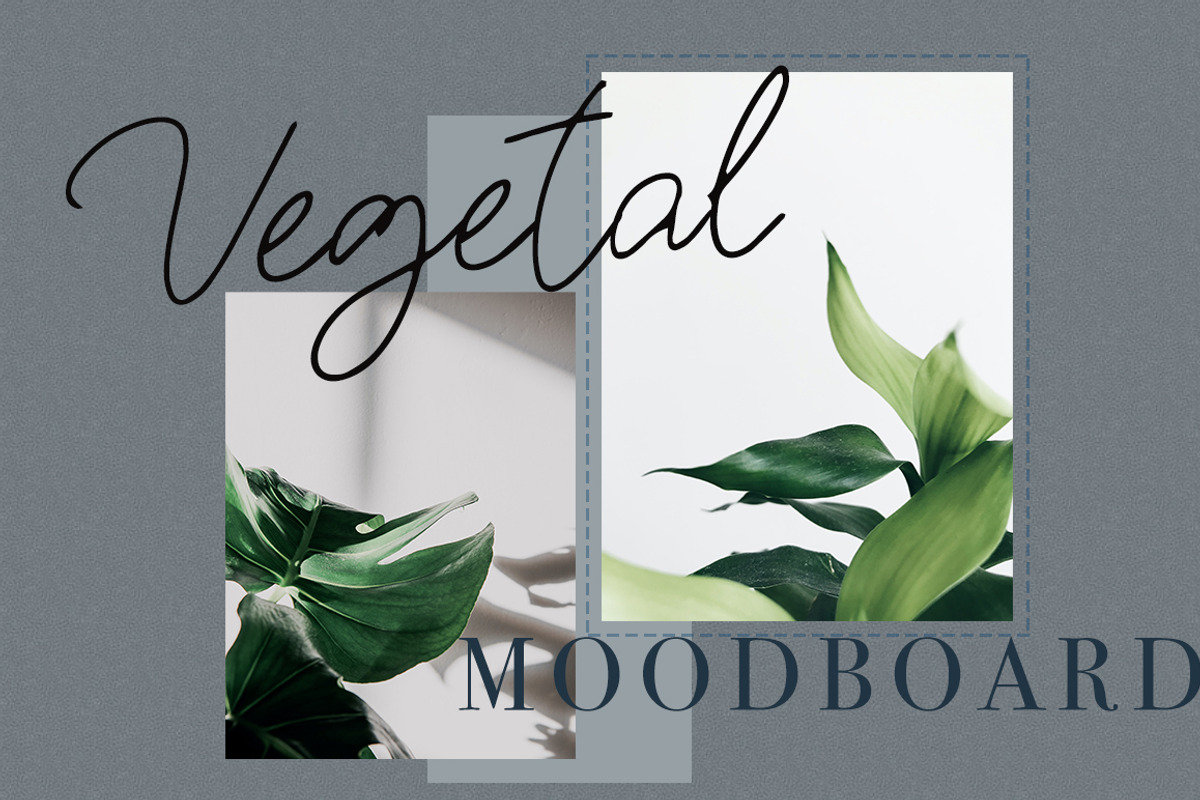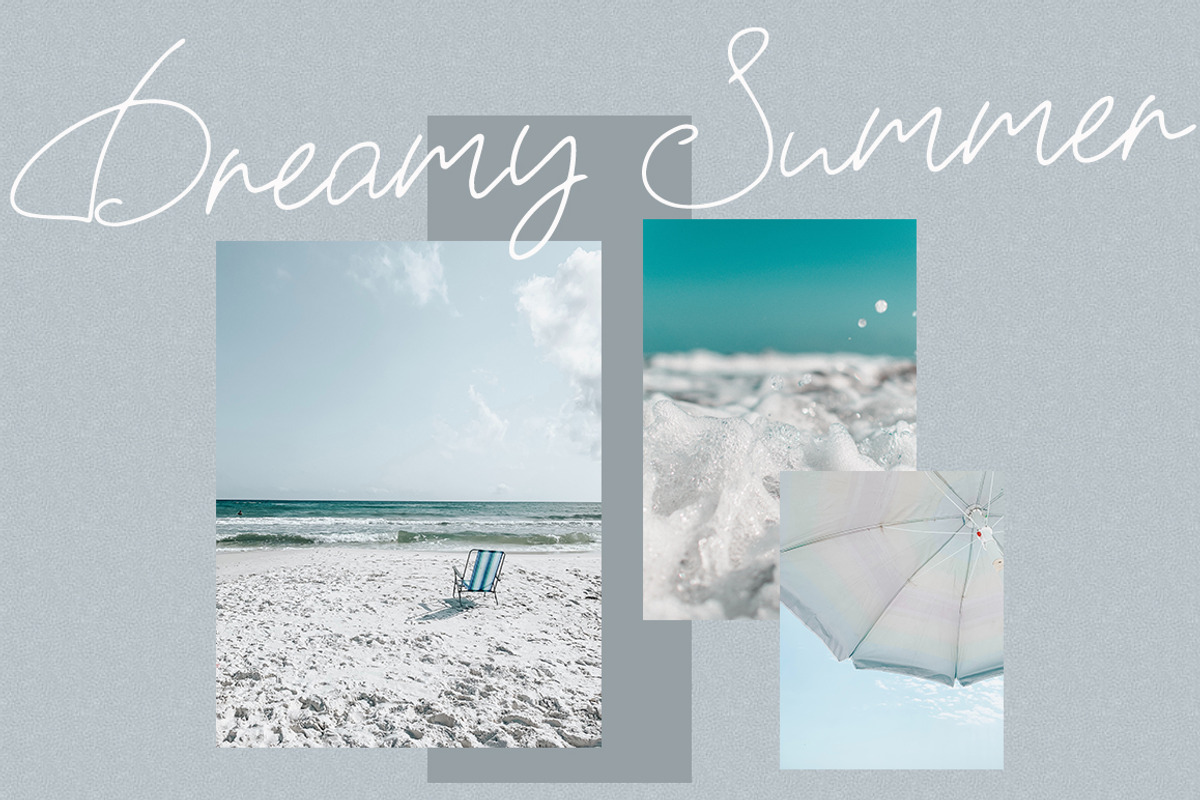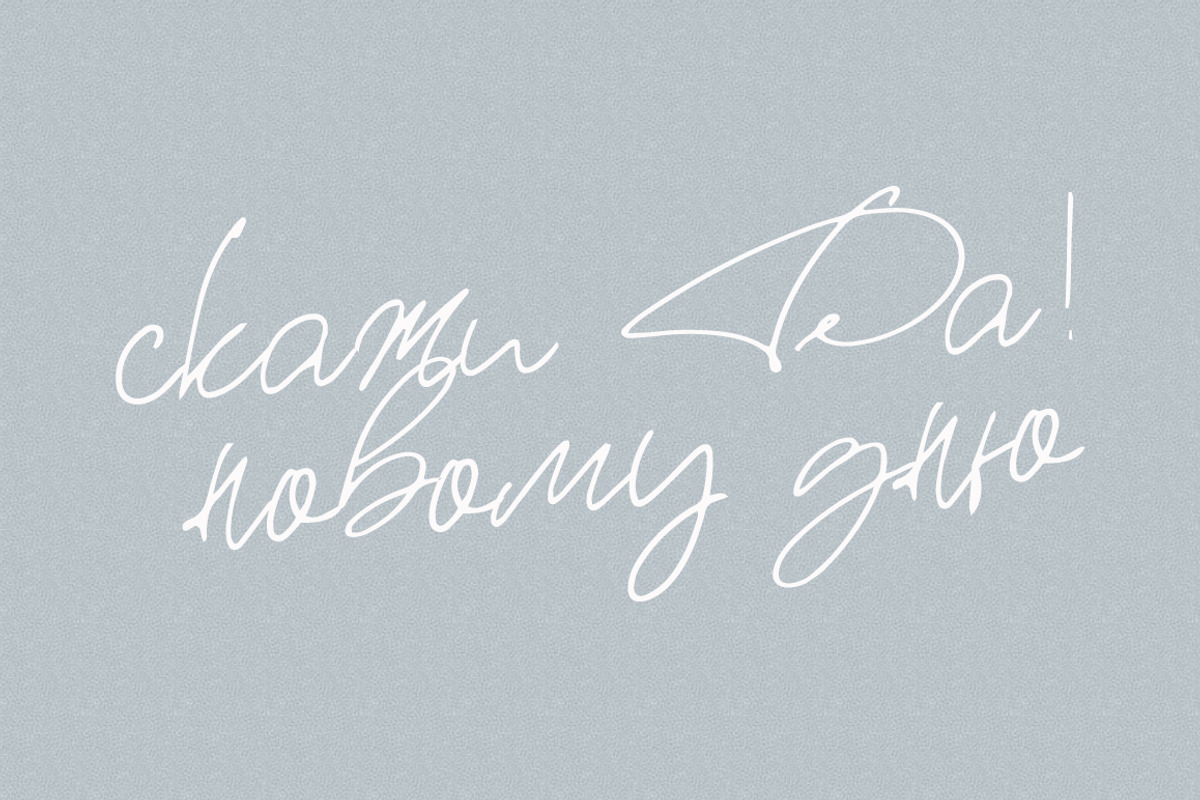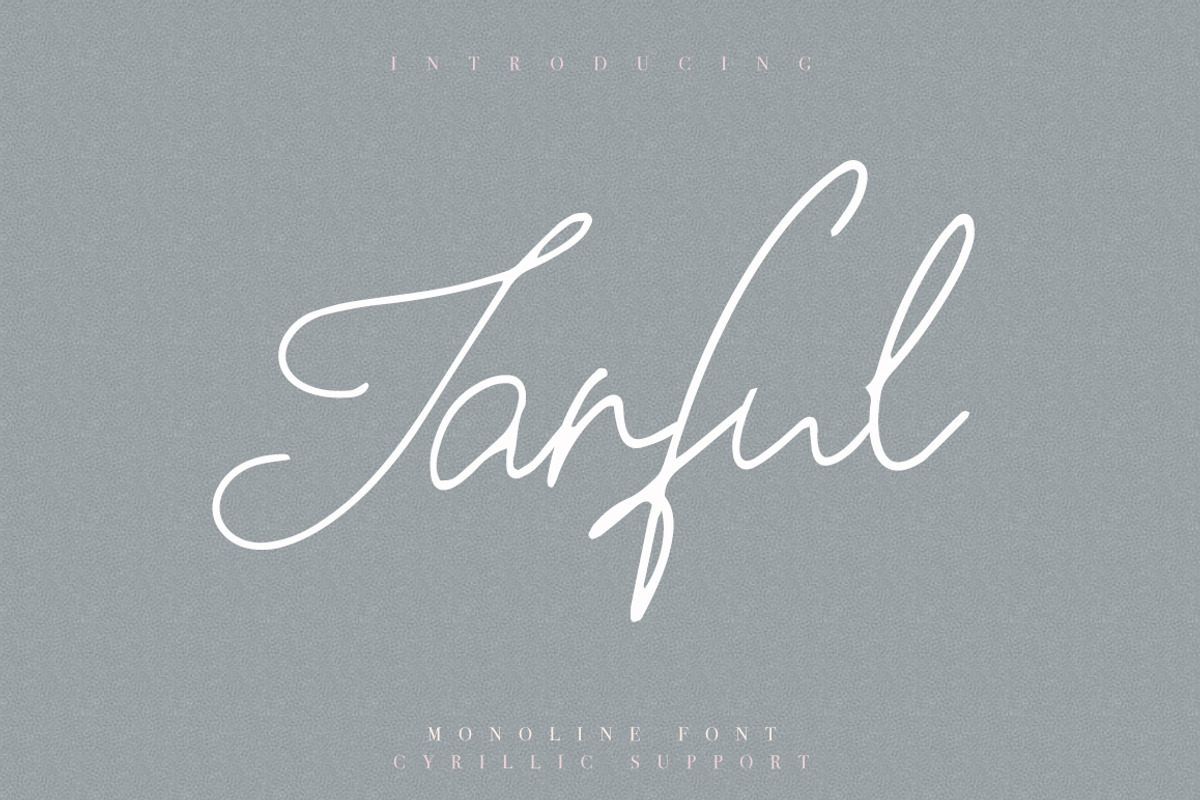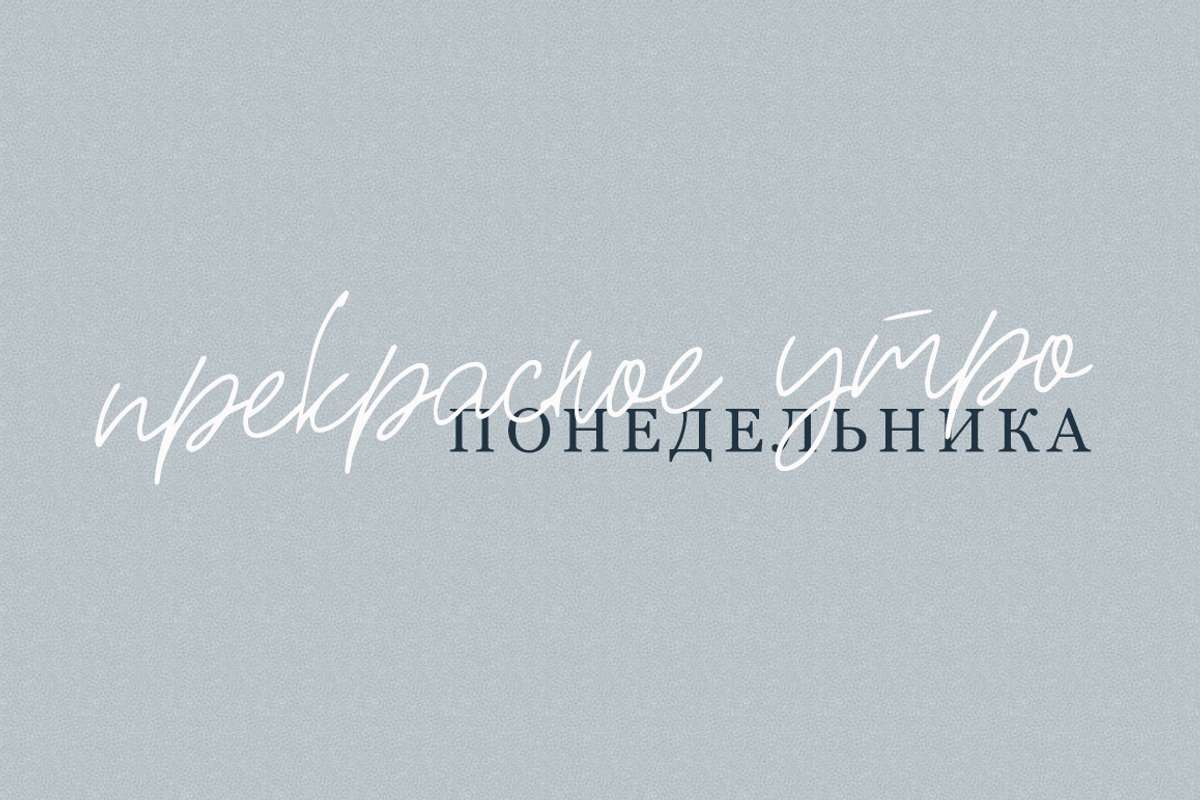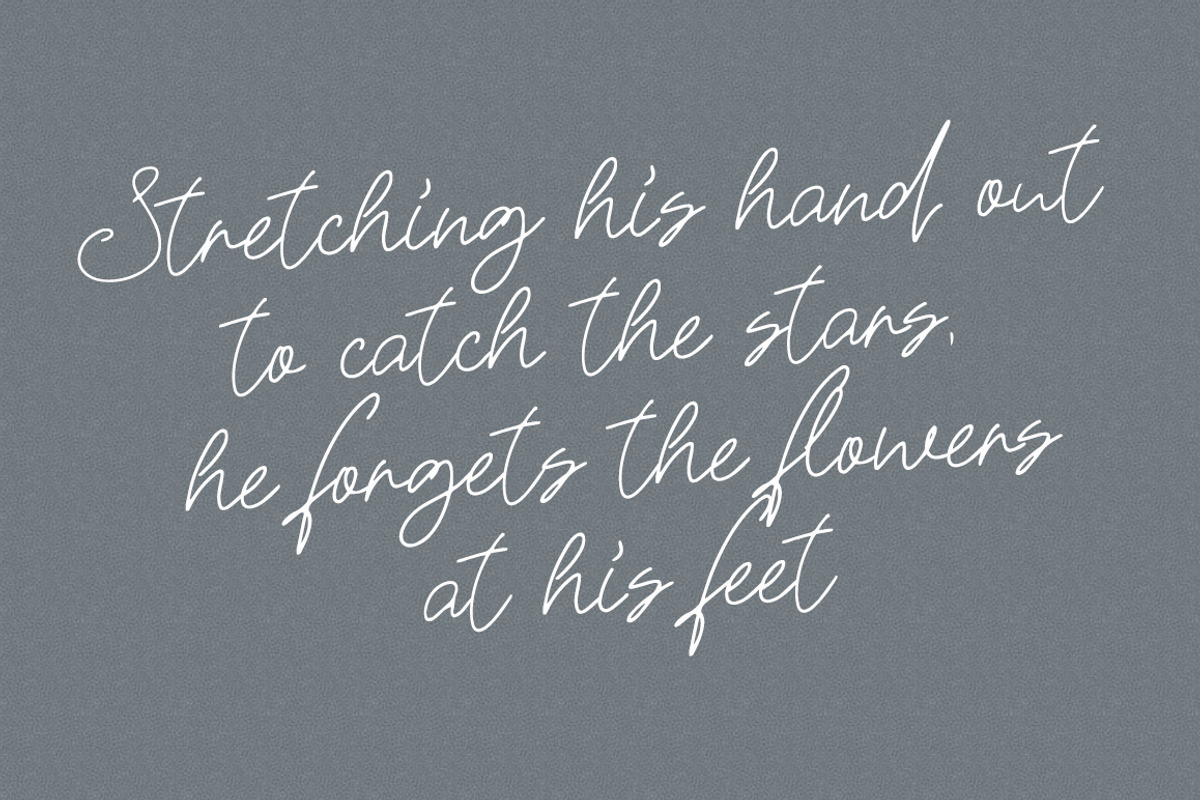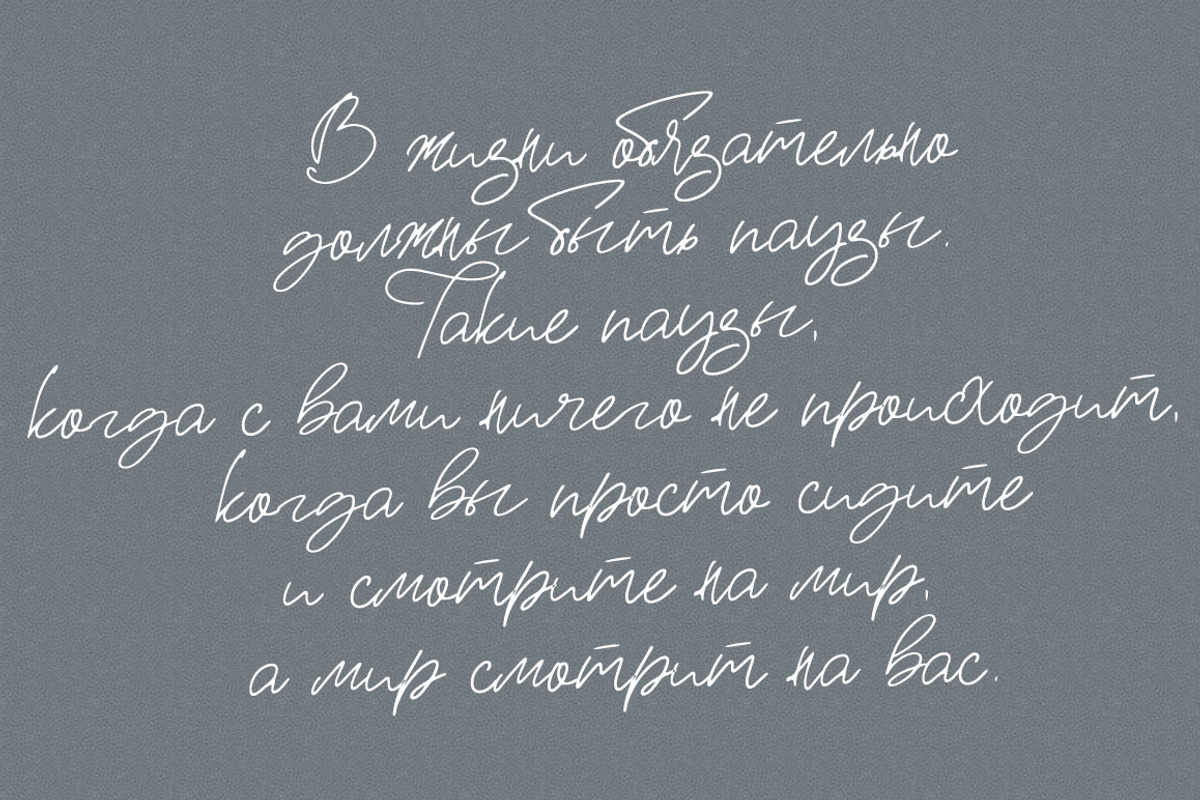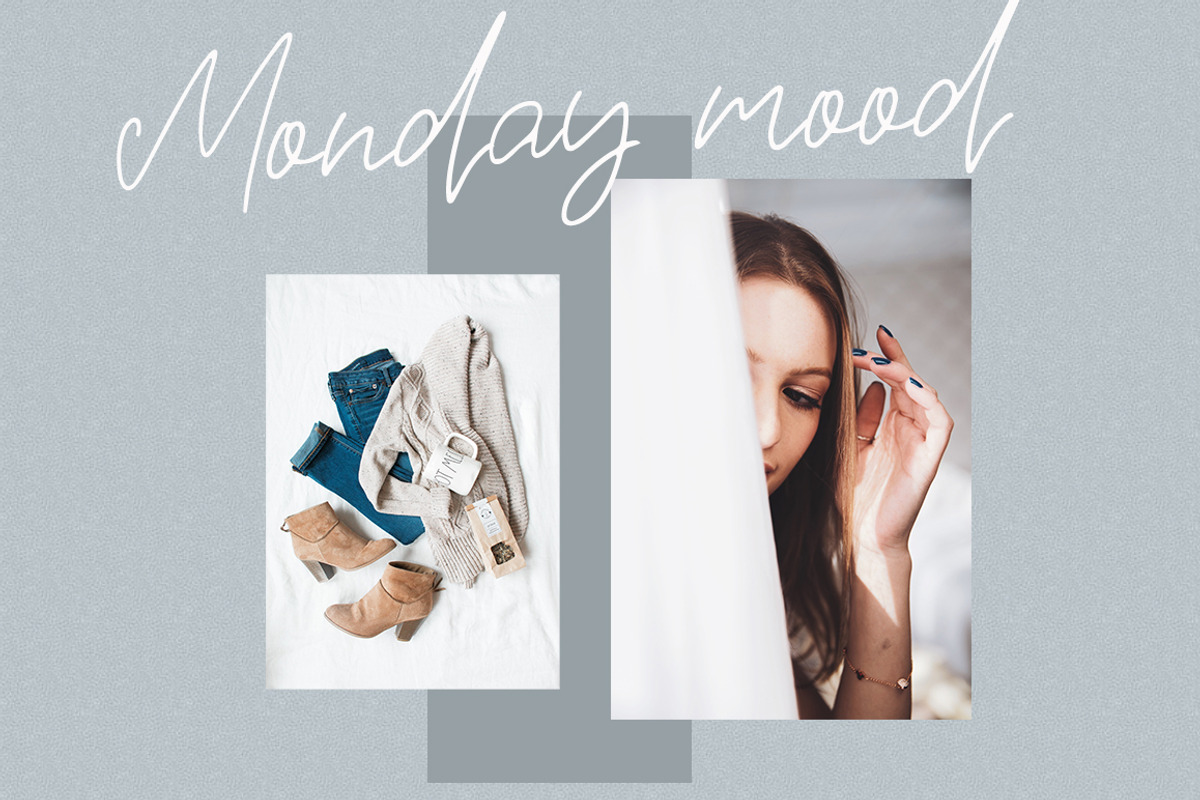
Jarful / Cyrillic & Latin Font
Latin & Cyrillic Font
This handwritten script has been attentively written, with gentle curves to produce a font thats completely distinctive and original. Perfect for adding a elegant and unique touch to your lettering projects and branding
Also with their help, you can create a Wedding lettering or beautiful frame for your home. Or just use for your small business, book covers, stationery, marketing, magazines and more.
every single letters have been carefully crafted to make your text looks beautiful. Perfect for your Moodboard!
The font is super versatile and suitable for any project.
And one more thing, this font fully supports Cyrillic!
Why Jarful / Cyrillic & Latin Font is worth a look